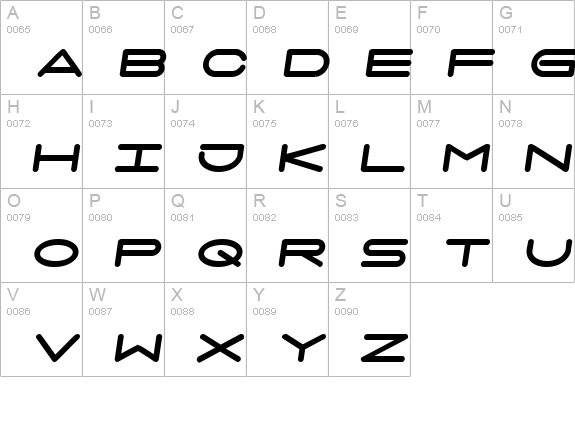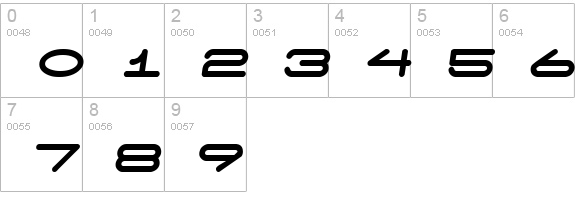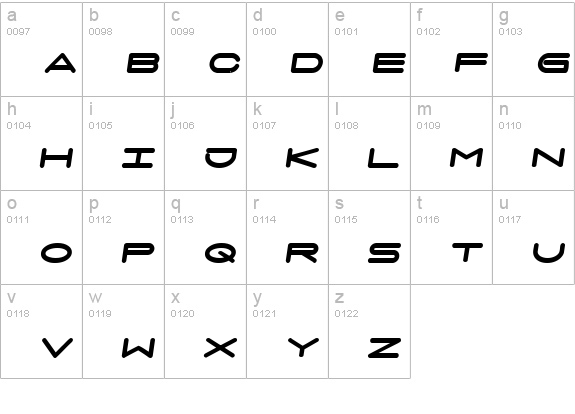
7 days fat oblique is a distinctive, italic variant in the 7 typeface family \xE2\x80\x94 well suited to design and typography projects.
Introducing the 7 Days Fat Oblique Font - a bold and dynamic typeface that adds a touch of modern flair to any design project. With its striking oblique style and sleek lines, this font is perfect for making a statement and grabbing attention. Whether you're creating posters, flyers, or branding materials, the 7 Days Fat Oblique Font is sure to make your text stand out. Best of all, this font is available for free download at FontsMarket.com! Simply head over to the website and grab your copy today to add this stylish font to your collection. Don't miss out on the opportunity to enhance your designs with the 7 Days Fat Oblique Font - download it now and take your projects to the next level!